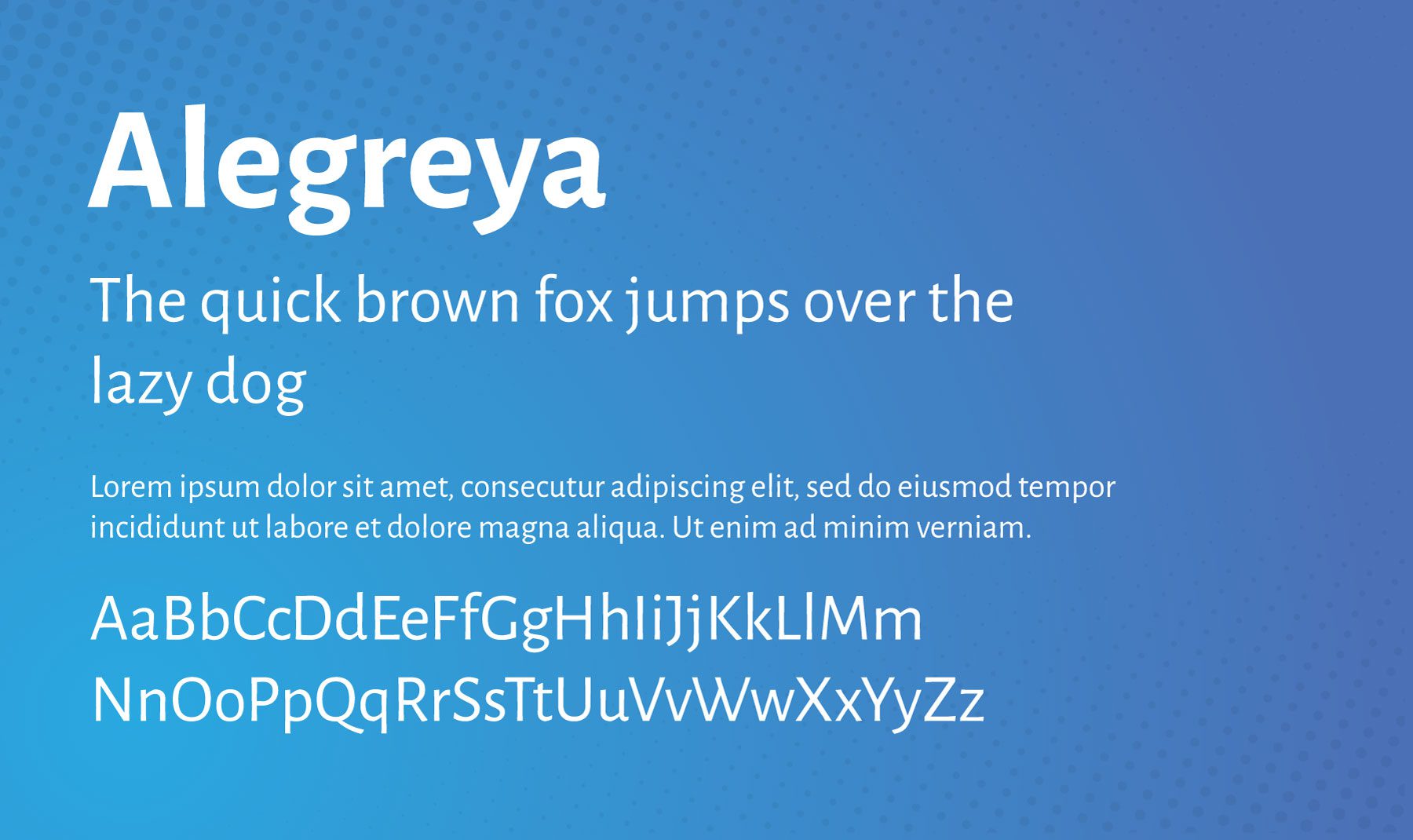
In this post, we’ll highlight fifteen of the best Divi fonts and combinations for you to try this year, as well as tips and best practices for using them on your Divi site.
About Divi Font and Text Styling Options
Divi offers an extensive range of font and text styling options that allow you to customize the look and feel of your content. You can easily adjust text styles such as size, weight, line height, letter spacing, and font family for any text element on your website.
15 Best Divi Fonts & Font Combinations
It can be daunting to approach a list of 800+ fonts and try to decide which ones are right for your project. Hopefully, this list (in alphabetical order) will help you cut through the noise and make strong design choices.
I’ve done my best to highlight fonts we haven’t covered on our blog before. In our post 12 Best Google Fonts for WordPress, we covered many popular Google Fonts that tend to be recommended. Some of the most popular Google Fonts for websites include:
The list below consists of additional popular fonts (as well as some hidden gems) that you can try out when designing your Divi websites. They are available in the Divi builder, and many have also been incorporated into our 250+ pre-made Divi layout packs.
1. Alegreya Sans
Alegreya Sans is a sans-serif typeface designed by Juan Pablo del Peral for the Spanish foundry Huerta Tipográfica. It has a friendly, relaxed, and approachable character that makes it ideal for web design projects with a softer brand voice. The font family consists of 8 weights ranging from Thin to Black, each of which includes small caps and italics.
Best For: blog posts, landing pages, and any long-form web content that needs a softer feel and is easy to read.
Combine with: Eczar, Open Sans, Lato, Merriweather, Source Sans 3, and Gowun Batang.
2. ASAP
ASAP is a modern sans-serif typeface designed by Dušan Jelesijević. Its clean, minimalistic style makes it perfect for websites that want to convey a contemporary yet timeless brand voice. The font family consists of 8 weights ranging from Thin to Black, each of which includes small caps and italics.
Best For: both headings and body text. Due to its clean and modern look, it is particularly effective in tech-related and contemporary web designs.
Combine with: Flamenco.
3. Bitter
Bitter is a serif typeface designed by Sol Matas for Huerta Tipográfica. It has an elegant and classic feel with a slight hint of quirkiness, making it ideal for websites that want to maintain a sophisticated yet approachable brand voice. The font family consists of 8 weights ranging from UltraLight to Black, each of which includes small caps and italics.
Best For: body text. Can be used for headings too, but really shines when used for blog posts or page copy.
Combine with: Duru Sans, Montserrat, Arimo, Raleway, Roboto, Rubik, PT Sans.
4. Fira Sans
Fira Sans is a sans-serif typeface designed by Erik Spiekermann, Ralph du Carrois, Anja Meiners, and Botio Nikoltchev of Carrois Type Design. It was initially created for Mozilla’s FirefoxOS and aims to provide legibility across various devices.
Best For: both headings or body text. Due to its clean and modern look, it is particularly effective on tech-related websites. But don’t let that stop you from trying it out on different types of websites. Especially since it pairs with so many other Divi fonts so well.
Combine with: Inconsolata, Playfair Display, Montserrat, Lato, Source Sans 3, and Merriweather.
5. IBM Plex Mono
IBM Plex Mono is a monospaced typeface and part of the IBM Plex family, which was designed to embody IBM’s brand spirit and history. The typeface family was created by Mike Abbink and Bold Monday and released in 2017. The Mono variant draws inspiration from the IBM Selectric typewriter.
Best For: headings, body text, and code snippets. Due to its monospaced nature, which ensures that each character occupies the same amount of space, it’s easy to read and understand on screens. All of which makes it perfect for blog posts. If you have a retro-tech theme, even better!